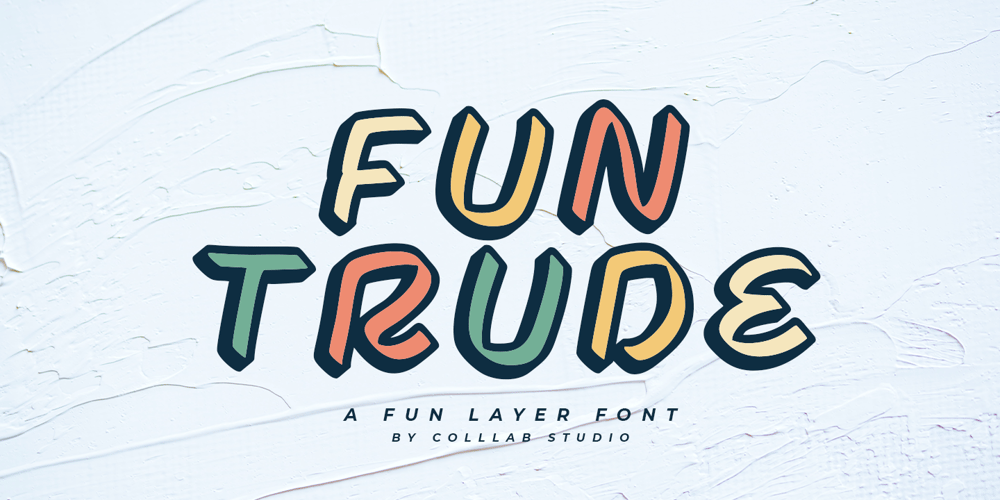
Funtrude Font Family was designed by Muh. Aswar, Awaluddin Syarif and published by Colllab Studio. Funtrude contains 3 styles and family package options. “Hi there, thank you for passing by. Colllab Studio is here. We crafted best collection of typefaces in a variety of styles to keep you covered for any project that comes your way!When you have a project that needs a fun, unique font to make it pop, you can’t go wrong with Funtrude. Funtrude comes in three styles: Basic, Extrude, and Hole. Each style has more than 350 of the most beautiful glyphs you could ever dream of seeing.The Extrude style is great for titles, headings, and any other text where you want to use a bold font but don’t want it to be overly bold; the Basic style will work great for things like product names or subheadings; and the Hole style is perfect for anything else!Each individual style comes with its own swashes—so your fonts can look just as beautiful when they’re all capitalized as they do when they’re in normal text.What makes us so excited about this product is how much we love to use it ourselves. When we saw Funtrude for the first time, we couldn’t believe our eyes—it was everything we had ever wanted in a font, plus it was super affordable. GET IT NOW….!!!A Million ThanksColllab Studiowww.colllabstudio.com